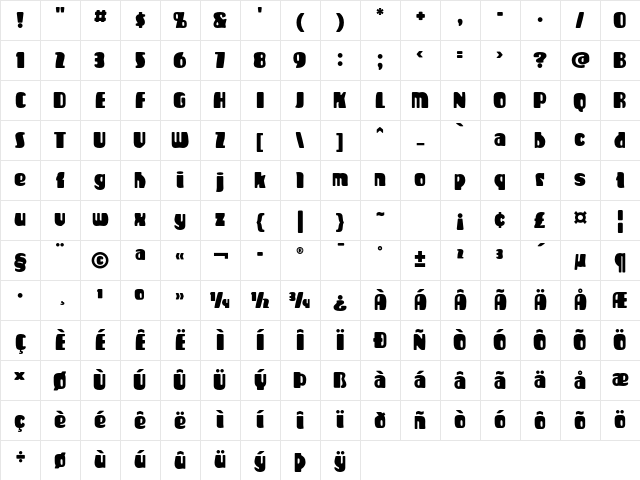
Complete Liverpool ITC Std Regular glyph index. Displaying only characters natively supported by Liverpool ITC Std Regular font.
Liverpool ITC Std is a composed and adaptable typeface that performs quietly and consistently across a wide range of design contexts.